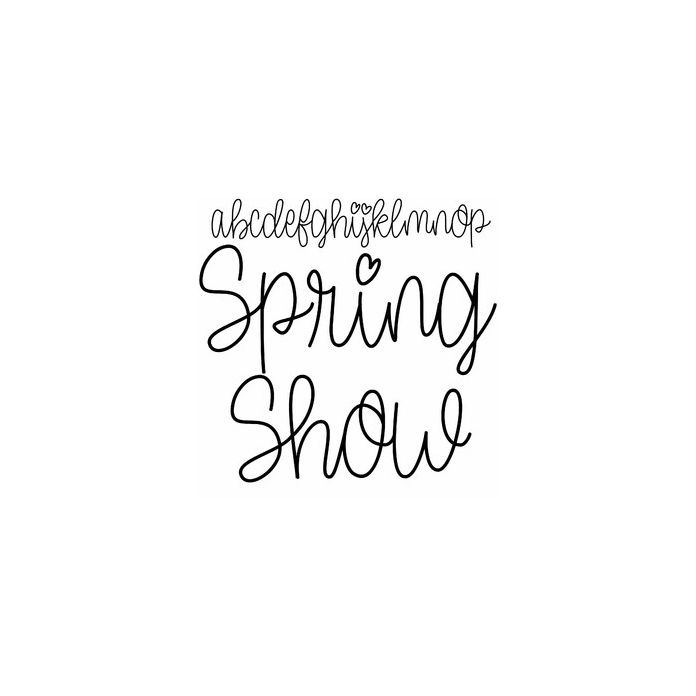
spring show handwriting script font
Spring Show is a cute handwriting script font, fun for cards, signs, projects, and more. Includes alphabet, numbers and punctuation.